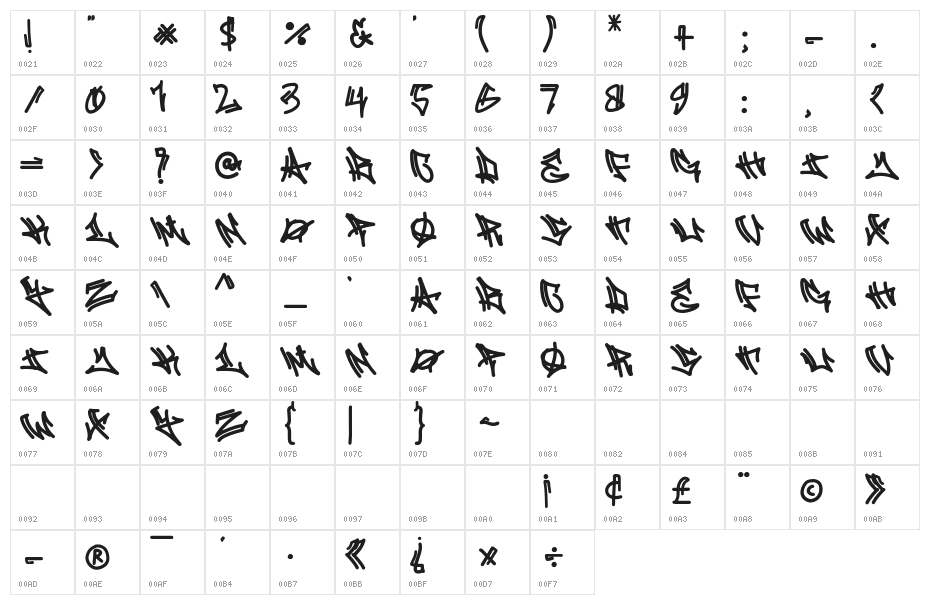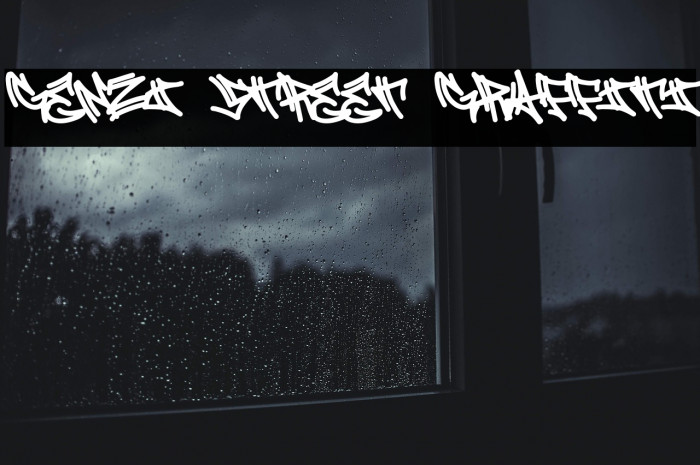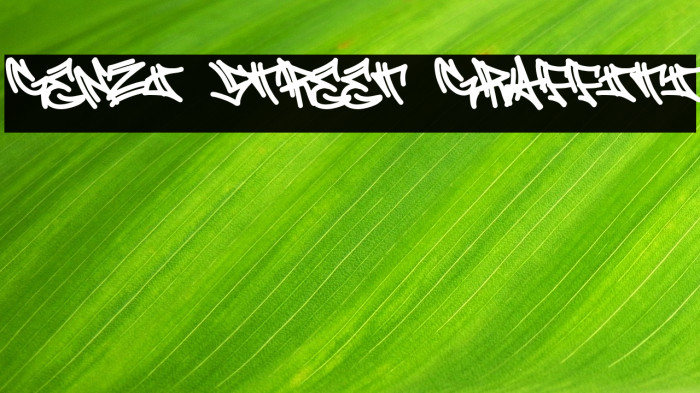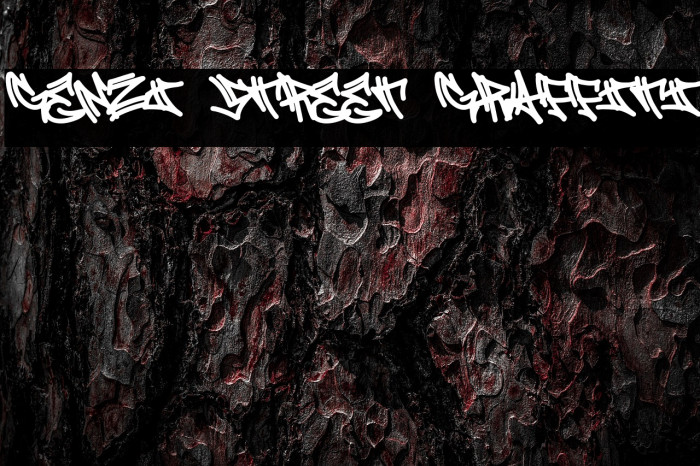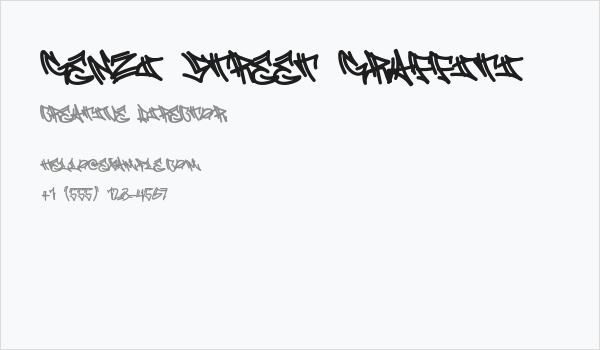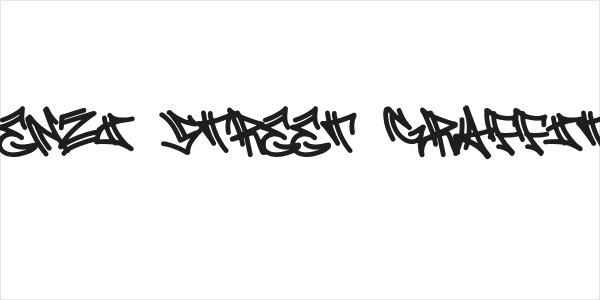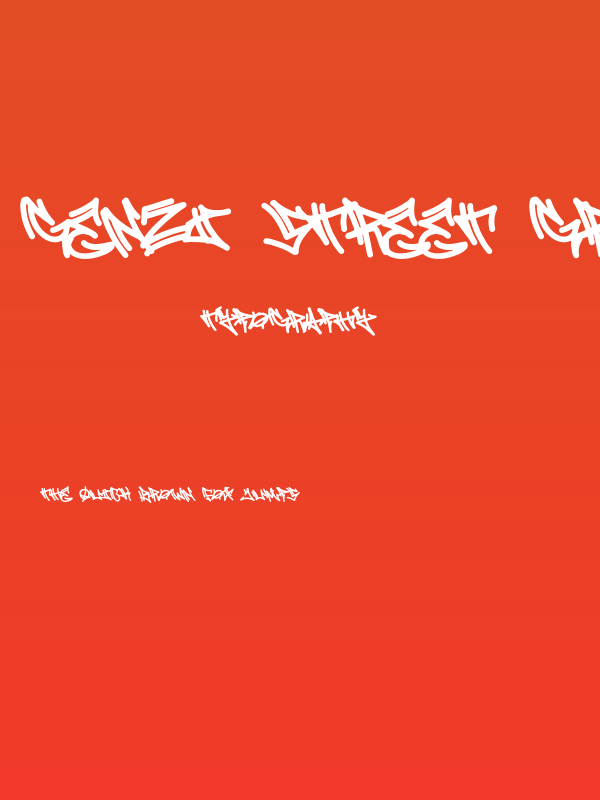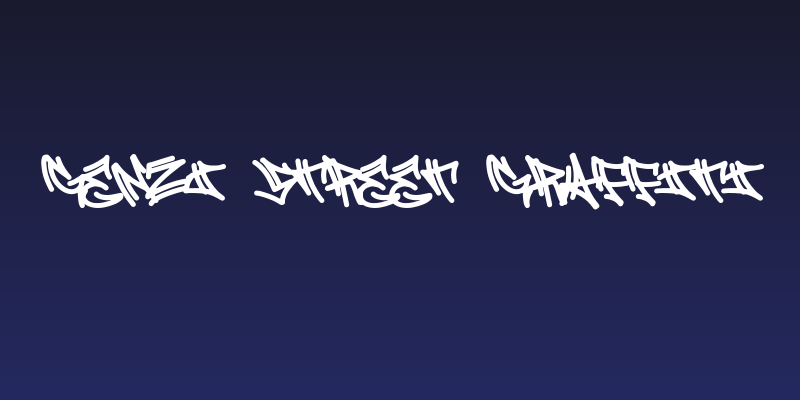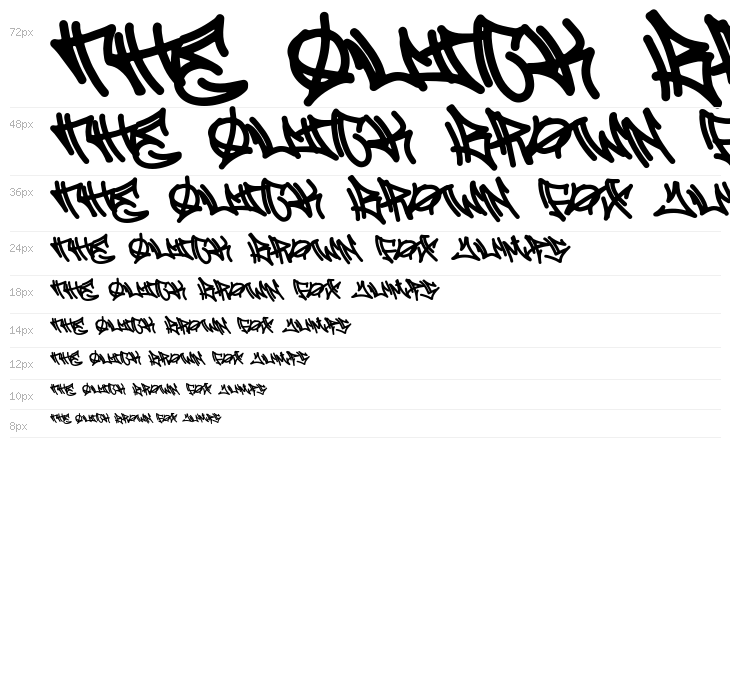
Genzi Street Graffiti Font
Genzi Street Graffiti Description
This font exudes a bold, urban aesthetic reminiscent of street art and graffiti. The characters are dynamic and energetic, with exaggerated curves and sharp angles that create a sense of movement and rebellion. The uppercase and lowercase letters blend seamlessly, maintaining a consistent style that is both edgy and artistic. Numbers and special characters follow the same design principles, ensuring a cohesive look across all elements. The font's unique style makes it stand out, capturing the essence of urban culture and creativity.
| Overall Style | Urban, Edgy, Artistic |
| Use Case | Logos, Posters, Street Art, Album Covers |
| Proposed Projects | Ideal for street art projects, urban-themed designs, music album covers, and edgy branding. |